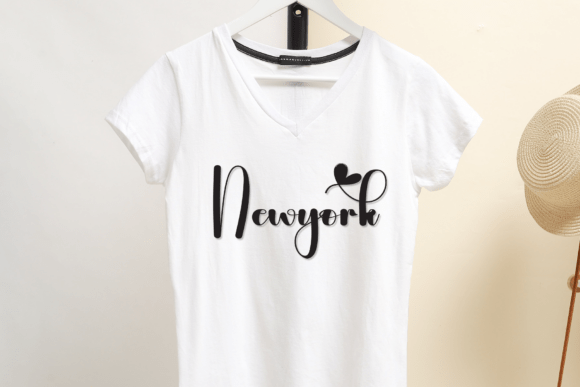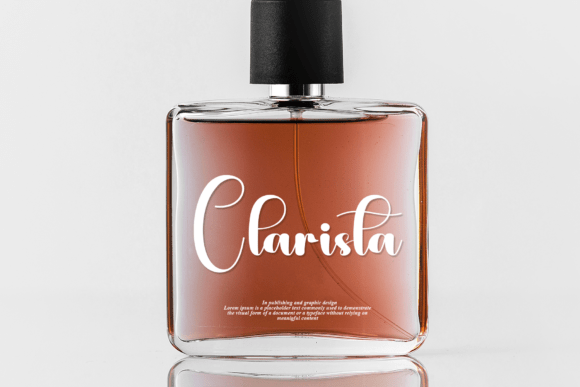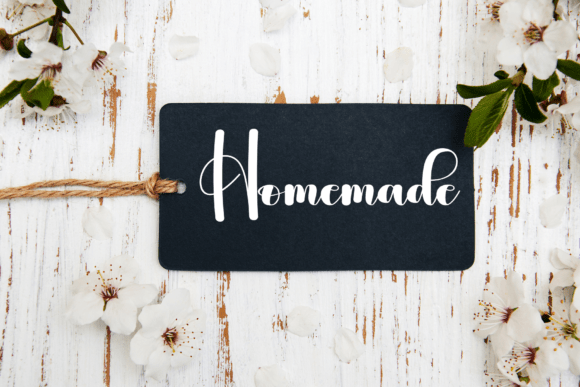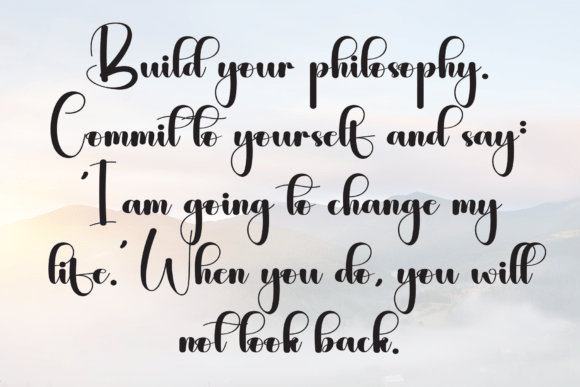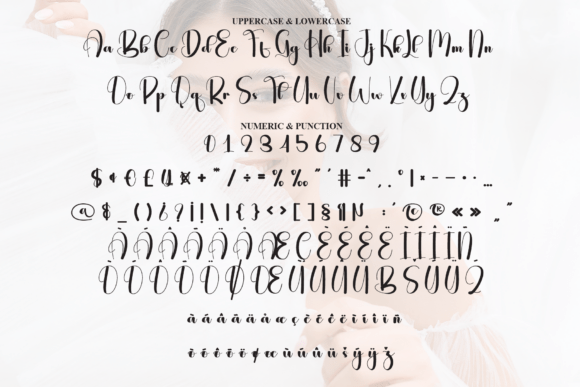
Unlocking the Artistic Charm of Design with the Bride Font
As creatives, we’ve all experienced that moment of pure inspiration – the spark that ignites a new idea, the flash of color that perfects a composition, or the font that brings it all together. For me, that moment came when I stumbled upon the Bride Font, a stunning script font that exudes artistic flair and contemporary elegance.
The Bride Font is a versatile tool designed for logos, invitations, packaging, and social media graphics, adding a creative and sophisticated touch to any design. With its fluid brush strokes, dynamic curves, and expressive letterforms, it captures the essence of hand-painted calligraphy with a modern twist. As a designer, I can attest to the value of this font, offering both visual impact and versatility that elevates any project.
Bride Font Key Features
- Font Family: Bride Font is a unique, hand-drawn script font designed to resemble a handwritten signature.
- Unique Characteristics: The font features intricate, flowing connections between letters, giving it a romantic and elegant feel.
Bride Font Review
I recently had the chance to work with the Bride font, and I must say it’s a unique choice for any wedding-related project. Here’s my honest review.
- The font’s elegant and feminine touch is perfect for wedding invitations, save-the-dates, and other wedding stationery.
- The high-quality typography is crisp and clear, making it easy to read, even at smaller sizes.
- The font comes in a range of weights and styles, giving you flexibility to create different looks and moods.
- It’s a great choice for designers who want to create a romantic and whimsical atmosphere.
- The font may be too ornate for some projects, making it difficult to read in certain contexts.
- It may not be the best choice for digital projects, as it can be quite large and may not scale well.
- The font’s high-end feel may make it feel too formal for some clients or projects.
Overall, I think the Bride font is a great choice for designers who want to create a unique and elegant look for their wedding-related projects. However, it’s essential to consider the limitations and ensure it’s the right fit for your client’s needs.
Tips for Getting the Most Out of Bride Font
For a beautiful and elegant look, use Bride Font in combination with pastel colors and floral patterns. Experiment with different font sizes and styles to create visual interest.
Bride Font is perfect for wedding invitations, save-the-dates, and wedding stationery. It’s also great for creating a romantic and whimsical atmosphere in your wedding decor or photo booth.